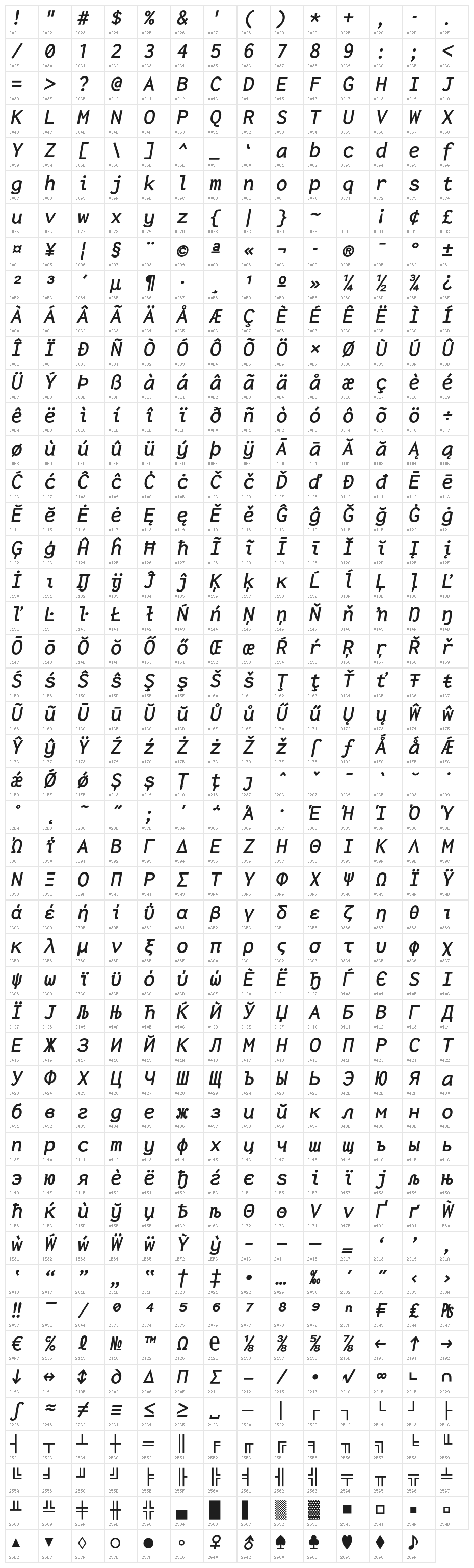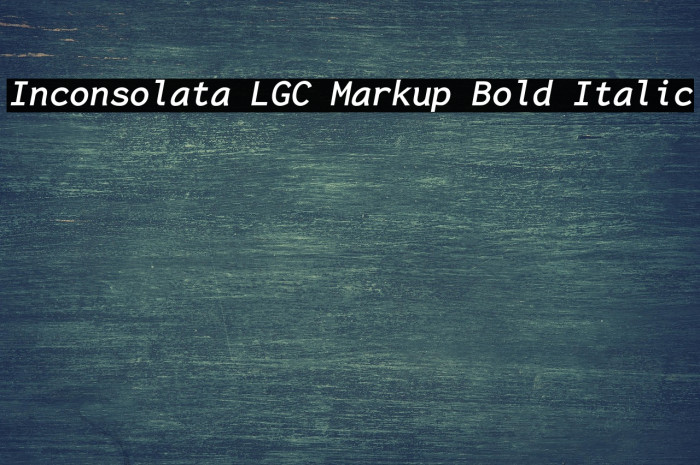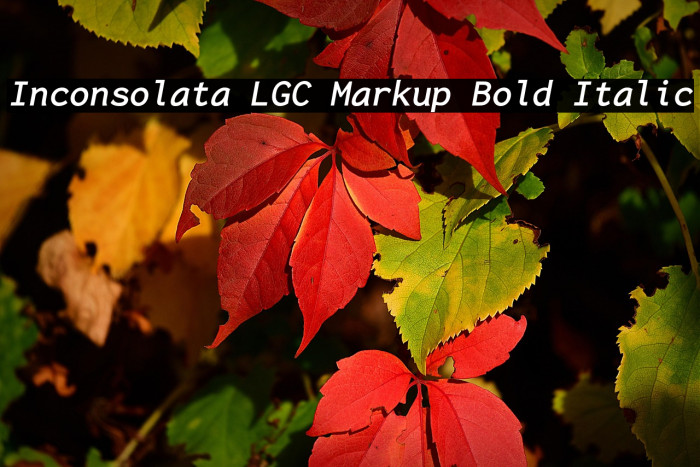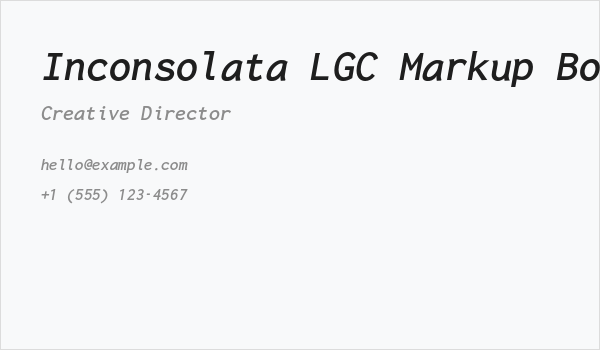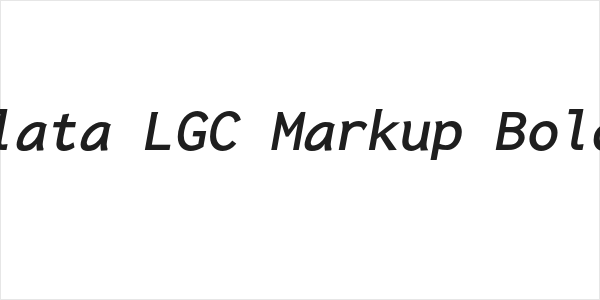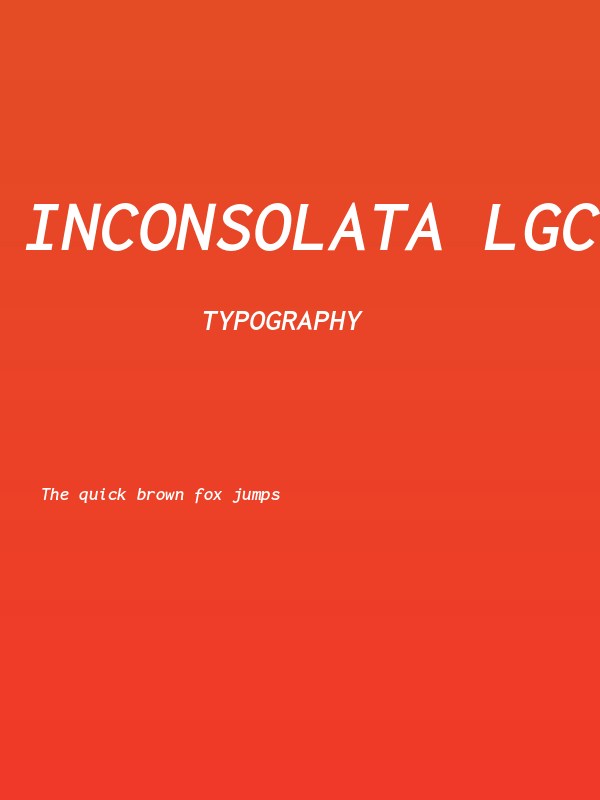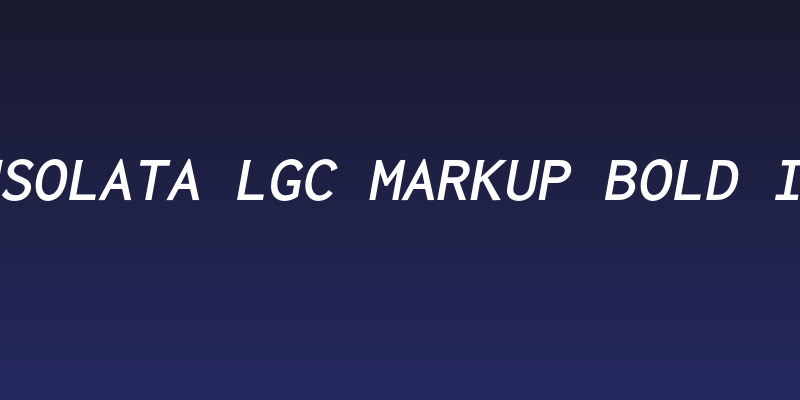
Inconsolata LGC Markup Bold Italic Font
Inconsolata LGC Markup Bold Italic Description
This font is a monospaced typeface with a modern and clean aesthetic. It features a bold weight and italic style, giving it a distinctive slant that adds dynamism to the text. The characters are evenly spaced, which is typical for monospaced fonts, ensuring uniformity and readability. The strokes are consistent in thickness, providing a medium contrast that balances clarity with style. The uppercase and lowercase letters maintain a cohesive design, while the numerals and special characters are clear and legible, making it suitable for coding and technical documentation.
| Use Case | Coding, Technical documentation |
| Proposed Projects | Ideal for coding environments, technical documentation, and any project requiring a modern, readable monospaced font. |